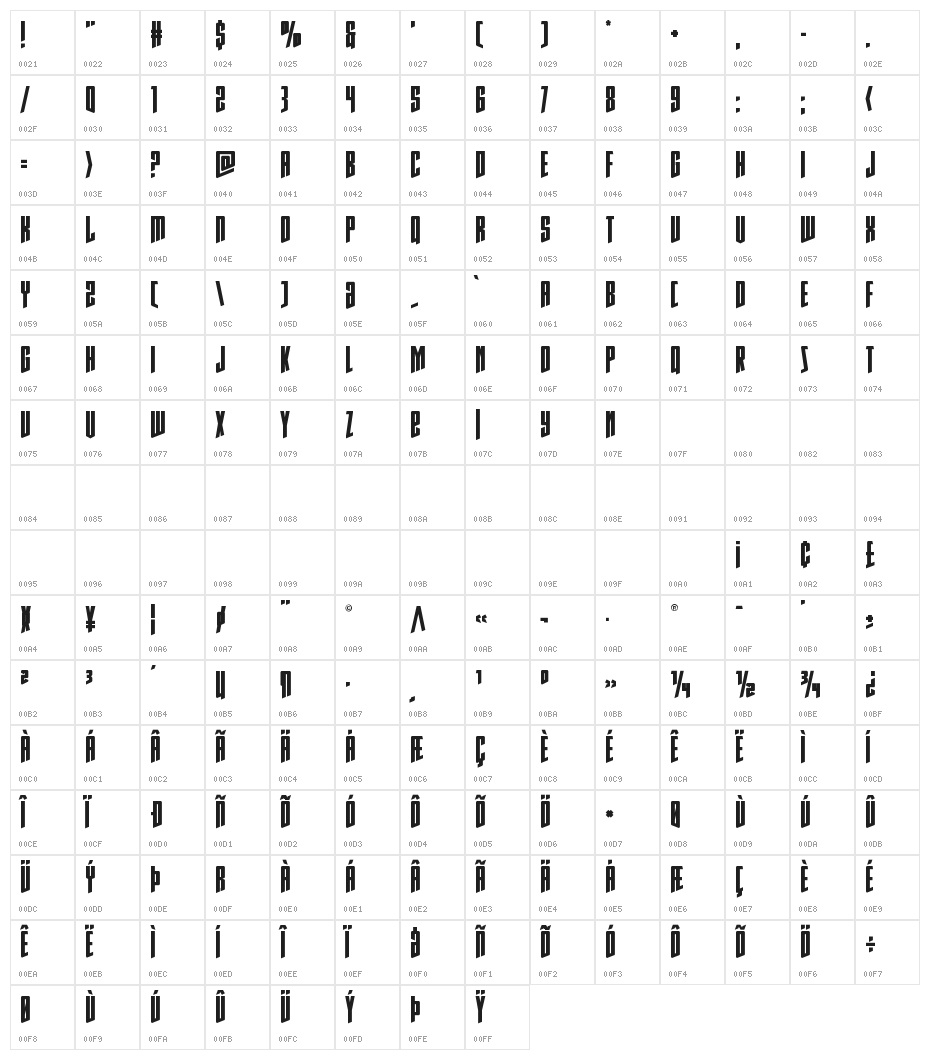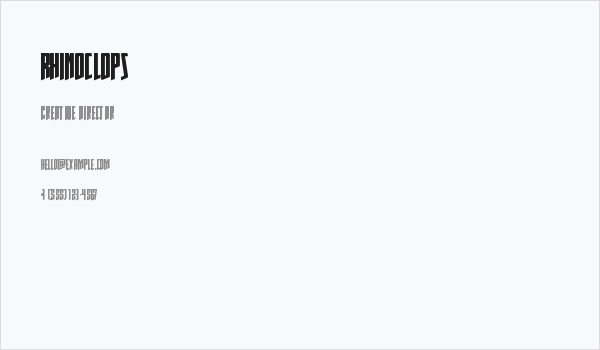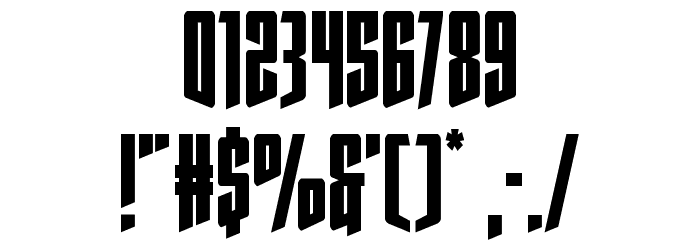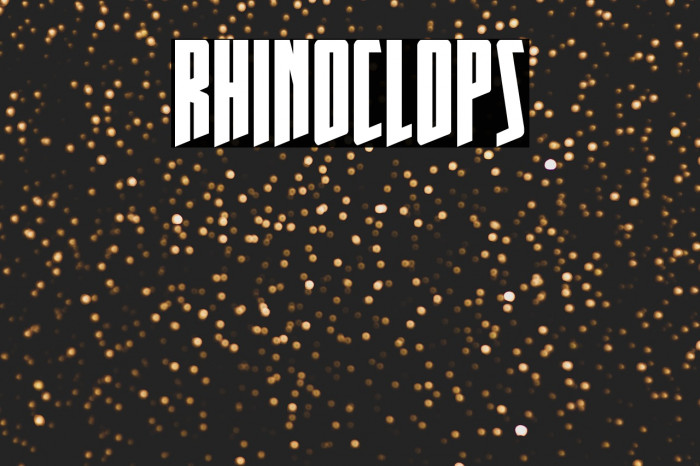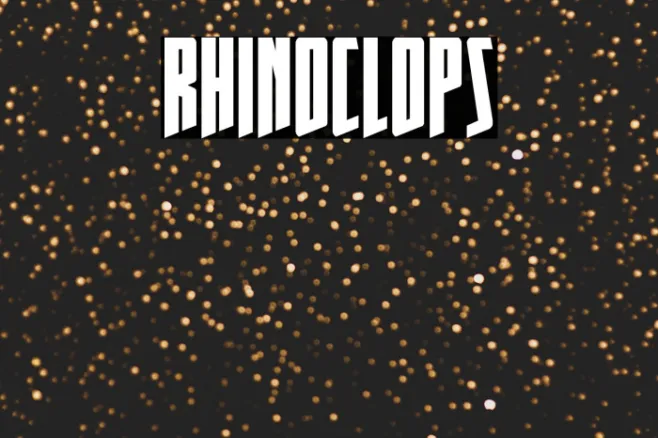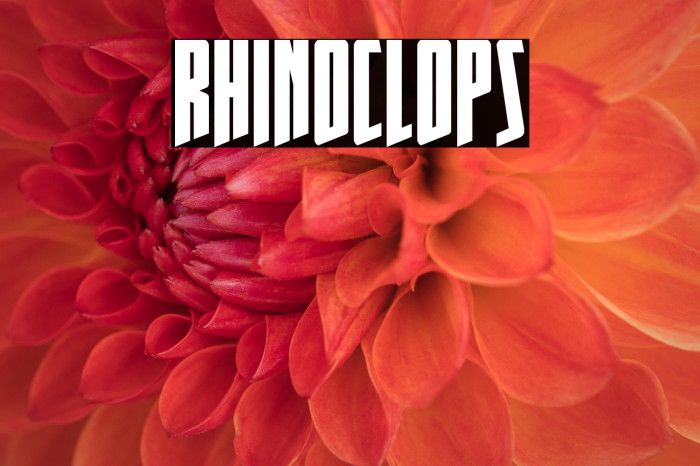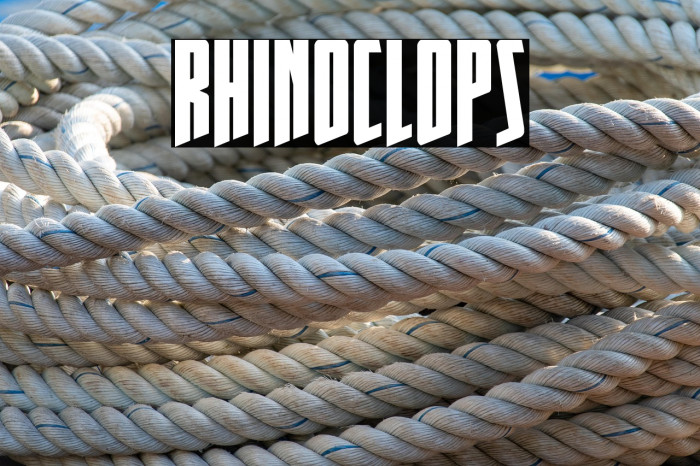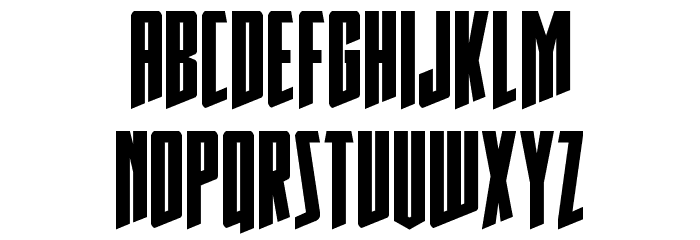
Rhinoclops Font
Rhinoclops Description
This font features a bold and dynamic design with sharp, angular edges and a strong presence. The characters are tall and narrow, giving them a condensed appearance. The uppercase letters are particularly striking, with a futuristic and aggressive style that commands attention. The numbers and special characters maintain this bold aesthetic, ensuring consistency across all glyphs. The font's unique style makes it ideal for projects that require a modern and impactful look.
RHINOCLOPS UPPERCASE
RHINOCLOPS LOWERCASE
RHINOCLOPS OTHER CHARS
| Proposed Projects | Ideal for sports branding, video game titles, posters, and any project needing a strong, modern aesthetic. |